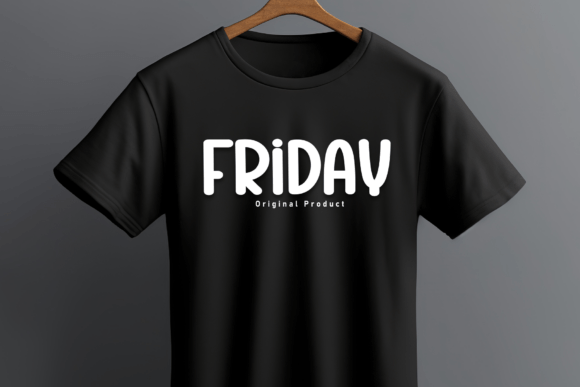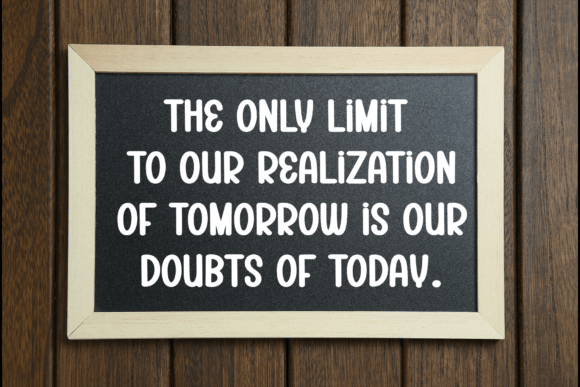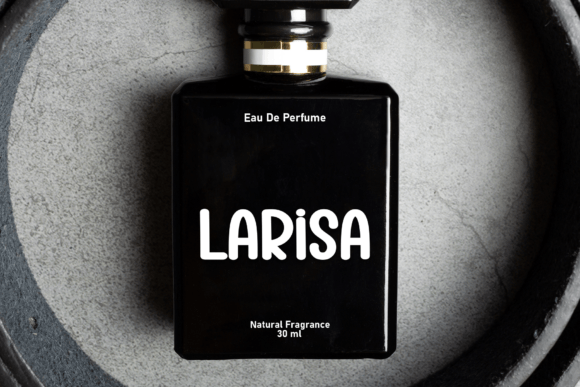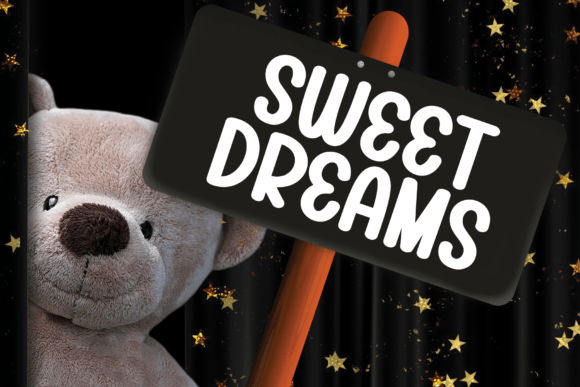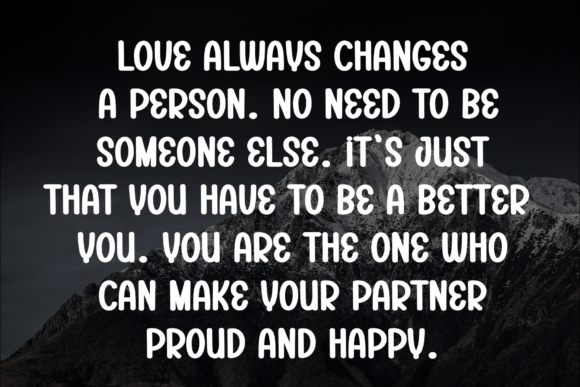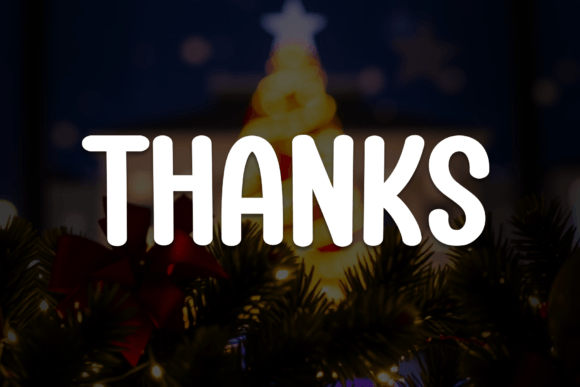
Introduction to Midnight Christmas Font
As you sit by the twinkling Christmas tree, surrounded by the soft glow of fairy lights, the smell of freshly baked cookies wafts through the air, and the fireplace crackles with warmth, you stumble upon the perfect moment to create something special. Perhaps it’s a holiday card for a loved one, or a festive invitation for a New Year’s party. Whatever the occasion, you know exactly what you’re looking for – a font that exudes the magic of the season, and the Midnight Christmas Font is the perfect companion for this creative venture.
This enchanting handwritten display font is a true gem for designers seeking to add a touch of whimsy and charm to their high-quality creative projects. With its adorable and playful nature, it’s the perfect design resource to breathe life into your work. And the best part? You can download it for free, with a transparent background that allows for endless design possibilities.
Key Features of Midnight Christmas Font
- High-quality, intricate design perfect for creative projects and holiday-themed graphics.
- Features a unique, elegant design that adds a touch of sophistication to any project.
Honest Review: Midnight Christmas Font
I recently stumbled upon the Midnight Christmas Font, and I’m excited to share my honest review. This font is perfect for any creative project that requires a touch of holiday magic.
- ✨ High-quality design that exudes a sense of elegance and sophistication.
- ✨ A wide range of characters, including uppercase and lowercase letters, numbers, and symbols.
Any limitations:
- ⚠️ Limited character set, which might not be ideal for lengthy text projects.
Overall, I’m impressed with the Midnight Christmas Font. It’s a fantastic design resource that’s perfect for adding a touch of holiday cheer to any project. Whether you’re working on a holiday card, a blog post, or a social media graphic, this font is sure to impress.
Midnight Christmas Font
The Midnight Christmas Font is a high-quality design resource perfect for creative projects. This free download offers a unique and festive touch to any design, making it a valuable addition to your design arsenal.
Tips for Getting the Most Out of Midnight Christmas Font
To get the most out of the Midnight Christmas Font, use it on designs with a transparent background to create a sense of depth and dimension. You can also pair it with other design elements, such as images or graphics, to add visual interest to your design.
Common Use Cases for Midnight Christmas Font
The Midnight Christmas Font is commonly used in holiday-themed designs, such as Christmas cards, gift tags, and social media graphics. It’s also a great choice for designs that need a touch of elegance and sophistication.